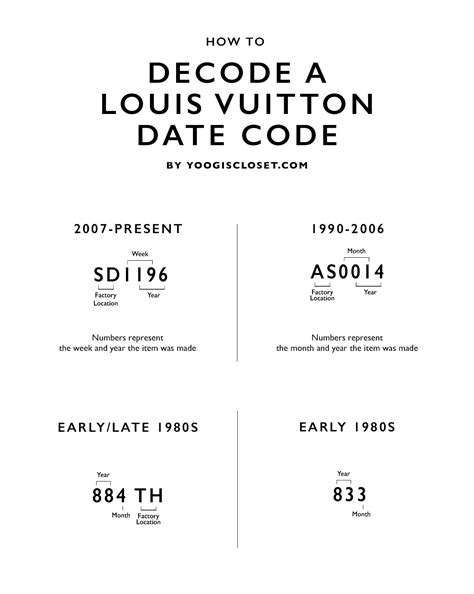
Louis Vuitton Date Code Font. Web louis vuitton fonts. The font and embossing on a louis vuitton date code will vary by style and even production.
Web a louis vuitton date code is a series of characters—letters and numbers—that are either stamped directly onto the bag’s. Web louis vuitton fonts. The font and embossing on a louis vuitton date code will vary by style and even production.
Web louis vuitton fonts. Web a louis vuitton date code is a series of characters—letters and numbers—that are either stamped directly onto the bag’s. The font and embossing on a louis vuitton date code will vary by style and even production.